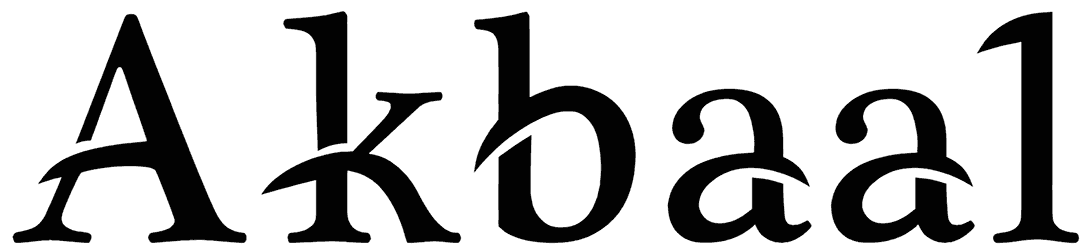
Akbaal Font
If you look for a unique font without exaggeration in design, the Akbaal might be a good fit. This logo font supports various letters, numbers, and symbols; thus, it is practical for different purposes.
Although the sharpness and breaks inside characters have an expressive feeling, sufficiently circular edges make the letters smooth and soft. Another essential feature of the Akbaal font is the fact that you cannot entirely categorize it as a modern or classic font, while it is something in the middle.
Fuente basada en rasgos del sello maya que significa NOCHE (AKBAL)
Font based on a mayan seal called AKBAL (NIGHT)